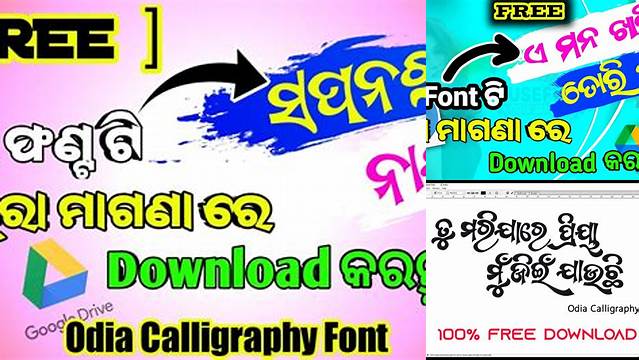
Hey guys! Are you looking for a way to spice up your Odia content? Do you want to create stunning designs with unique Odia fonts but don't want to break the bank? Well, you're in luck! This article is all about the Odia style font generator free download. We'll dive deep into the world of Odia fonts, explore where to find them, how to use them, and most importantly, how to get your hands on a fantastic free Odia font generator. Get ready to unleash your creativity and add a touch of Odisha to your projects!
H2: Discovering the World of Odia Fonts
Let's start with the basics, shall we? Odia fonts are more than just letters; they are a beautiful representation of the Odia language and culture. The graceful curves and unique letterforms add a distinct visual appeal to any text. Think about it: the right font can transform a simple message into a captivating piece of art. Finding the perfect Odia font is like choosing the right outfit – it needs to fit well and reflect your personality (or in this case, your content's personality!).
When exploring the world of Odia fonts, you'll encounter various styles. Some fonts are designed for readability, making them ideal for body text in books or articles. Others are more decorative, perfect for headlines, logos, or creative designs. You'll find fonts that are elegant and traditional, reflecting the rich history of Odisha. And you'll also discover more modern and contemporary fonts that cater to current design trends. The choices are vast, and the possibilities are endless! One of the key things to consider when choosing an Odia font is its legibility. Ensure that the font is easy to read, especially at smaller sizes, so your audience can enjoy your content. You'll also want to think about the overall aesthetic of the font. Does it match the tone and style of your project? Does it convey the right message? Remember that the right font can significantly impact how your audience perceives your work. It's the silent storyteller, setting the mood and drawing the reader in. This is where a free Odia font generator comes in handy. It helps you experiment with different fonts and styles until you find the perfect match for your needs. With a little effort, you can find a font that perfectly complements your content and makes it stand out. This means more engagement and a better connection with your audience. The key is to explore, experiment, and have fun with it!
H2: Why Use an Odia Font Generator?
So, why bother with an Odia font generator when you can just use any font? Well, using an Odia font generator offers a lot of advantages. First off, it gives you access to a wide range of Odia fonts. This is a much better option than sticking with whatever fonts you happen to have installed on your computer. With a generator, you can find the perfect font to match your project's specific needs and style. Need a formal font for an official document? Or a playful font for a children's book? A generator often has you covered.
Secondly, a free Odia font generator simplifies the design process. Instead of struggling to install fonts or manually creating Odia text, you can easily type your text and preview it in various fonts. This lets you quickly see how your text will look in different styles, allowing you to make informed decisions. It can save you a ton of time and effort. A generator also removes the technical hurdles associated with using Odia fonts. You don't need to be a design expert to create beautiful Odia content. The generator handles the complexities, allowing you to focus on your message. It's all about making the design process easier, more efficient, and more accessible to everyone. Another key benefit is the ability to experiment. You can try different fonts and styles without any risk or commitment. You can also test combinations of fonts to see which ones work best together. This level of experimentation is invaluable when it comes to creating the perfect design. You can refine your design until it perfectly matches your vision. It's like having a design playground at your fingertips. Using an Odia font generator also makes it easier to create consistent branding. If you have a website or social media presence, you can select a font that reflects your brand's personality and use it consistently across all your platforms. This helps build brand recognition and reinforces your brand identity. So, if you want a way to create designs that resonate with your audience, it makes sense to get yourself familiar with a free Odia font generator.